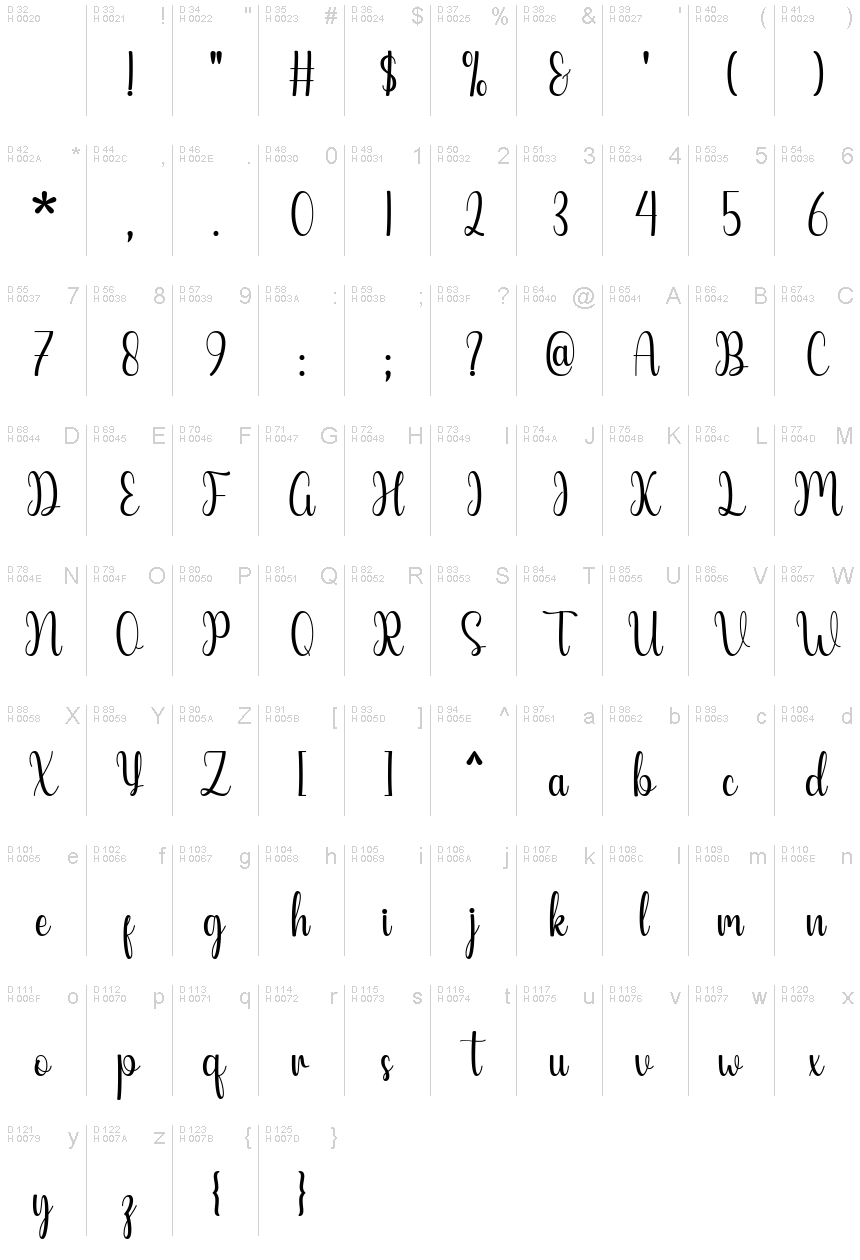
Think
Think, a creation by Hardiboy Design, captures the essence of personal touch with its handwritten style that brings an intimate and distinctive flair to any text. Its condensed format makes it stand out, lending a cozy and approachable vibe that's perfect for projects seeking to convey warmth and originality.
This font's casual elegance makes it ideal for invitations, greeting cards, or branding materials that aim to establish a friendly and inviting atmosphere. Think's charismatic curves and natural flow give designs a human-centric feel, allowing for clear communication wrapped in a layer of personalized charm.